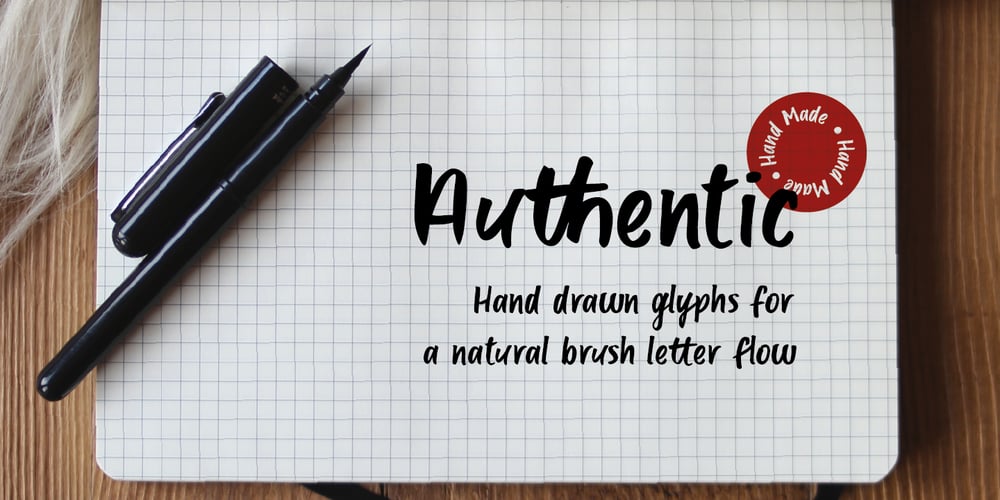
Deft Brush Font Family was designed by Adam Greasley and published by wearecolt. Deft Brush contains 1 styles and family package options. A beautiful brush font created directly from original drawn characters. Deft Brush features a number of ligature and alternative glyphs to add to the hand drawn look. A great front for bold headlines, titles and crafty logotypes. Available as both .otf and .woff